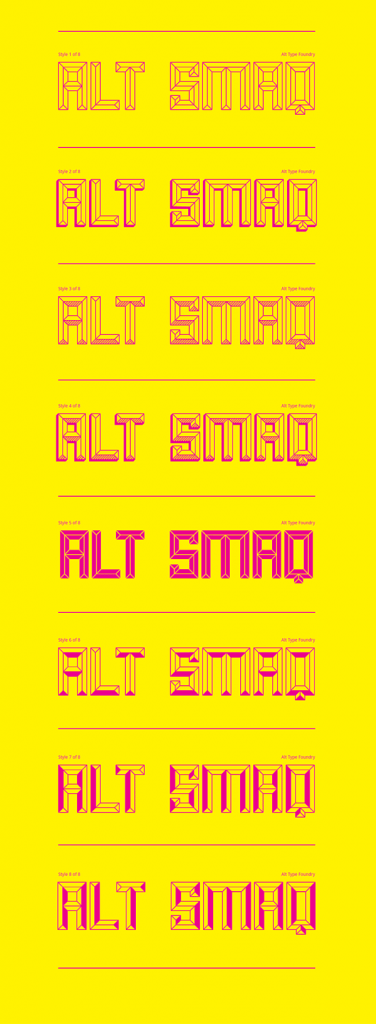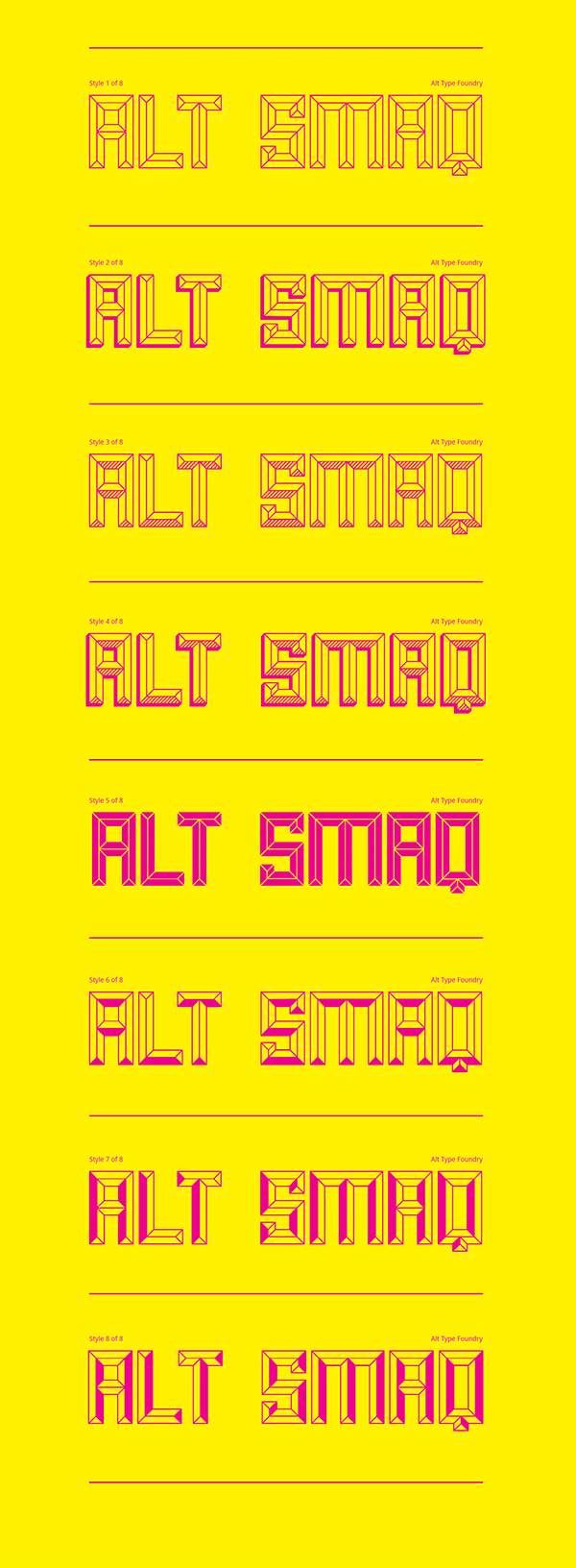
Smaq
Free Font Of The Day #149 – Smaq Font
Smaq Font
The font is a decorative typeface, ideal for posters,logos, etc. All 8 styles are completely free. Designed by Andreas Leonidou.